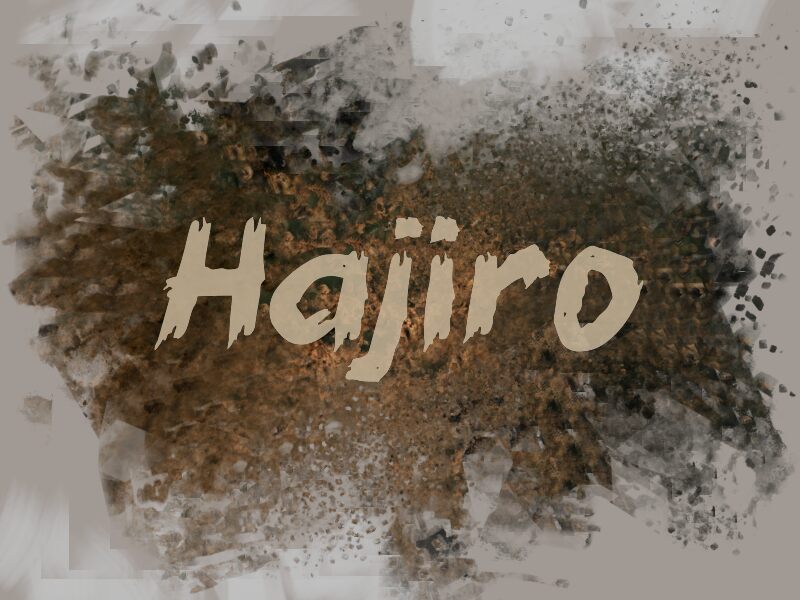
Hajiro
Hajiro font is a script typeface designed by wep that features an unusual artistic style! The free display font combines textured strokes with trashy unclean details for a new level of creativity within your every letter. It’s a rugged and spontaneous multipurpose font that can be included in all the projects that require energetic typography.
Such an expressive and impactful style can be incorporated pretty much on all kinds of posters, but also social media posts, digital invitations such as phone messages, packaging designs, labels, and event cards. Planners will seem more special when decorated similarly to those sticker design ideas.